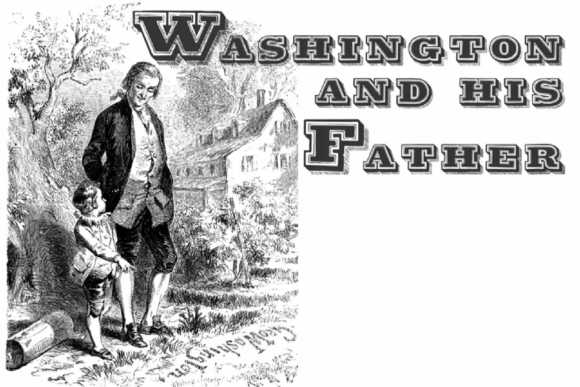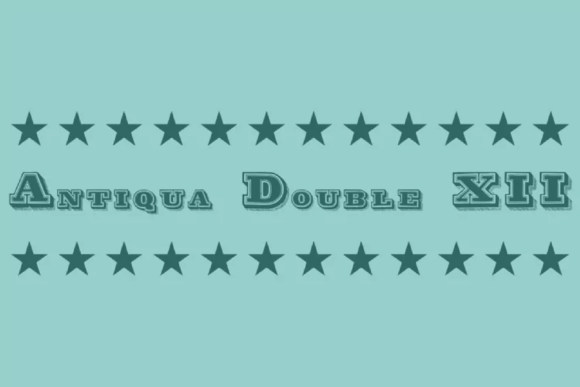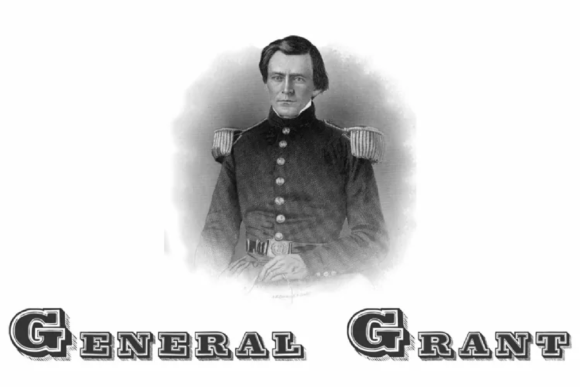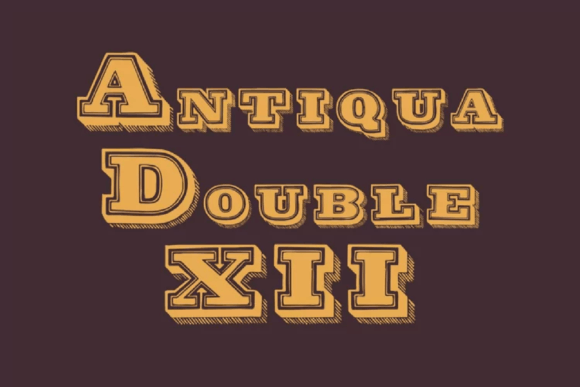
Discover the Timeless Charm of Antiqua Double XII Font
Are you a designer or crafter looking for a font that adds a touch of nostalgia and vintage authenticity to your projects? Look no further than the Antiqua Double XII font, a timeless vintage wood-type font that exudes classic charm. With its elegant and enduring design, this font is the perfect choice for anyone seeking to evoke a sense of history and tradition in their work.
The History of Antiqua Double XII Font
The Antiqua Double XII font has its roots in traditional wood-type fonts, which were commonly used in the 19th and early 20th centuries. During this time, wood-type fonts were a popular choice for printing and advertising, as they offered a durable and long-lasting alternative to metal typefaces. The Antiqua Double XII font is a modern interpretation of these classic wood-type fonts, with a unique and elegant design that pays homage to its heritage.
Design Characteristics of Antiqua Double XII Font
The Antiqua Double XII font features a distinctive design that is characterized by its elegant lines, classic proportions, and vintage charm. The font has a serif design, with subtle flourishes and ornaments that add to its nostalgic appeal. The letters are intricately crafted, with a focus on detail and precision that makes them perfect for use in a variety of projects, from digital designs to print materials.
Why Choose Antiqua Double XII Font?
So why choose the Antiqua Double XII font for your projects? Here are just a few reasons why this font stands out:
- Timeless appeal: The Antiqua Double XII font has a timeless quality that makes it perfect for projects that require a vintage or nostalgic feel.
- Elegant design: The font features an elegant design that is both sophisticated and refined, making it perfect for use in high-end designs.
- Versatility: The Antiqua Double XII font can be used in a variety of projects, from digital designs to print materials, and can be easily adapted to suit different styles and themes.
- High-quality craftsmanship: The font is intricately crafted, with a focus on detail and precision that ensures high-quality results.
Using Antiqua Double XII Font in Your Projects
The Antiqua Double XII font can be used in a variety of projects, including:
- Digital designs: Use the font in digital designs, such as social media graphics, blog posts, and website headers.
- Print materials: Use the font in print materials, such as brochures, flyers, and business cards.
- Crafting projects: Use the font in crafting projects, such as card making, scrapbooking, and DIY signs.
Tips for Getting the Most Out of Antiqua Double XII Font
Here are a few tips for getting the most out of the Antiqua Double XII font:
- Experiment with different sizes and colors: Try out different sizes and colors to see how the font looks in different contexts.
- Pair with other fonts: Pair the Antiqua Double XII font with other fonts to create interesting and dynamic typography.
- Use in combination with images: Use the font in combination with images to add an extra layer of depth and interest to your designs.
The Antiqua Double XII font is a timeless vintage wood-type font that exudes classic charm and elegance. With its enduring design and versatile appeal, it’s the perfect choice for designers and crafters looking to add a touch of nostalgia to their projects. Whether you’re working on digital designs, print materials, or crafting projects, this font is sure to bring a sense of vintage authenticity and sophistication to your work.